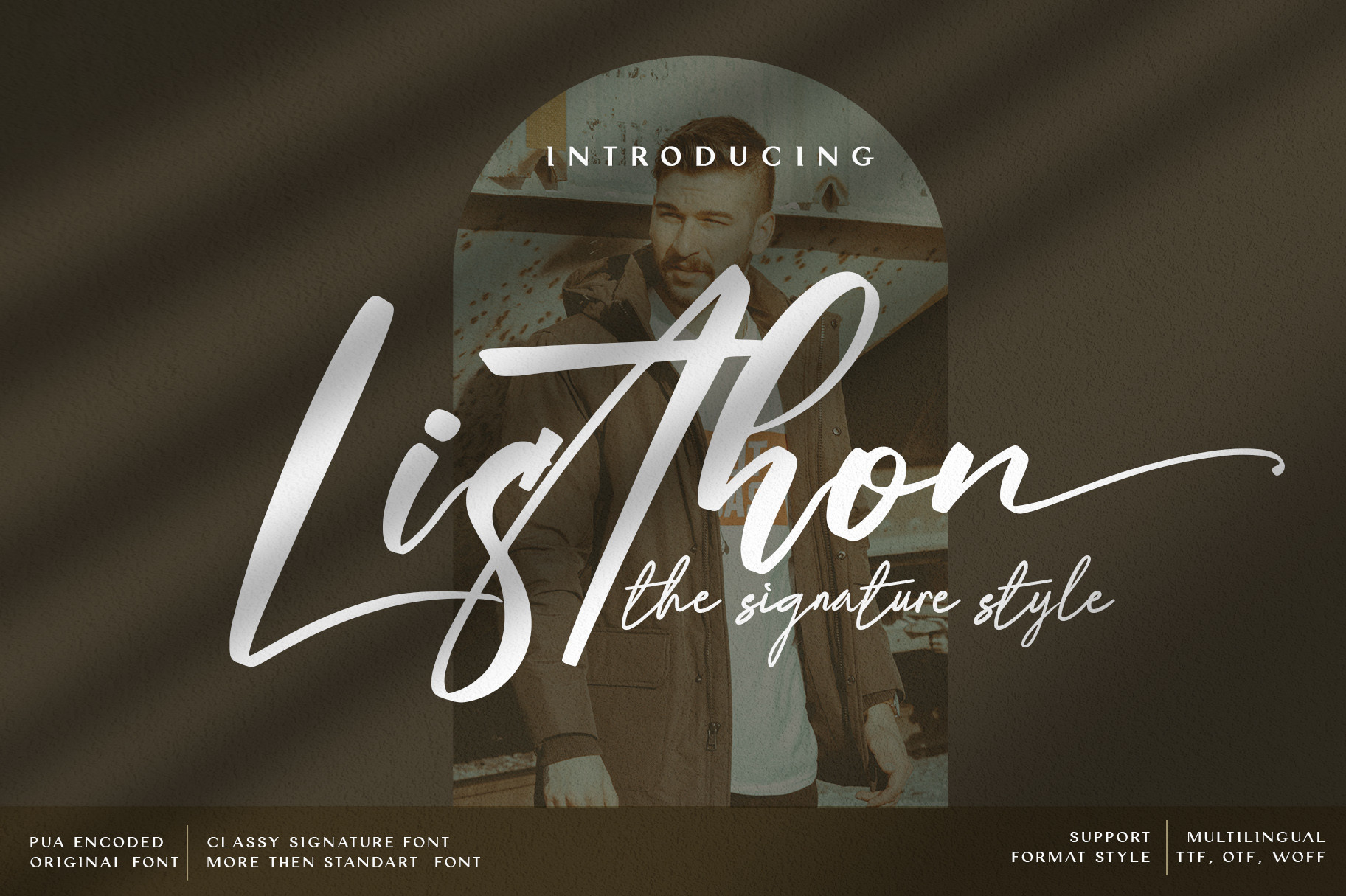
Listhon
Listhon is a font family published by Wildan Type.
Listhon is a lovely and timeless handwritten font. It is the best choice for creating eye catching logos, branding and quotes. Listhon is PUA encoded which means you can access all of the glyphs and swashes with ease!